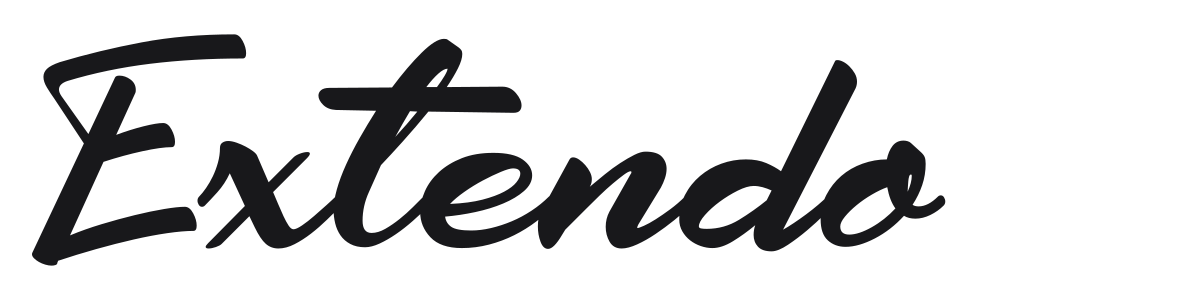
Extendo
Extendo is a bold brush script with sweeping connected strokes and the natural energy of hand-lettering. Thick downstrokes taper into thin hairlines across smooth, looping connections, giving it a lively rhythm that works well at large sizes. It carries the confident looseness of mid-century sign painting with a contemporary polish.